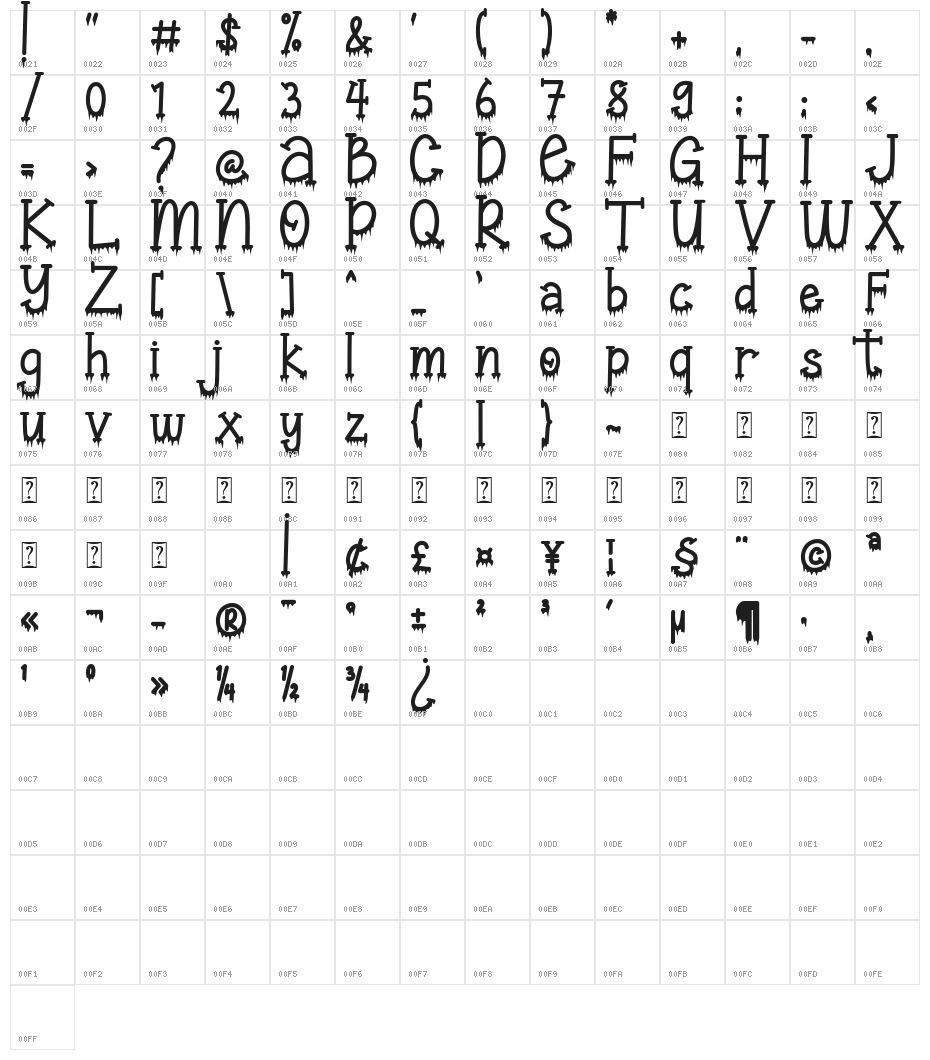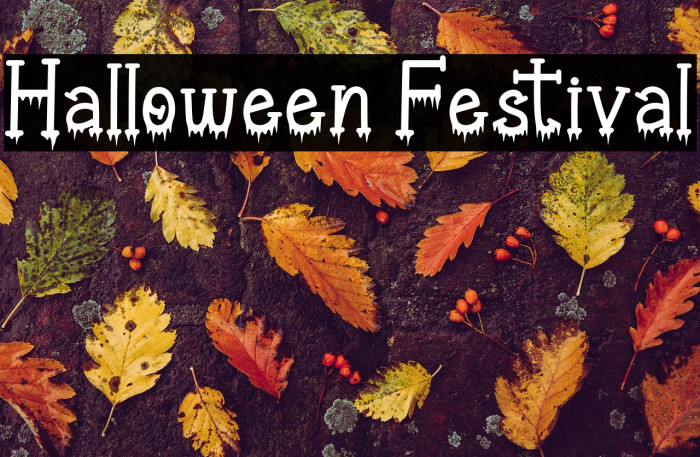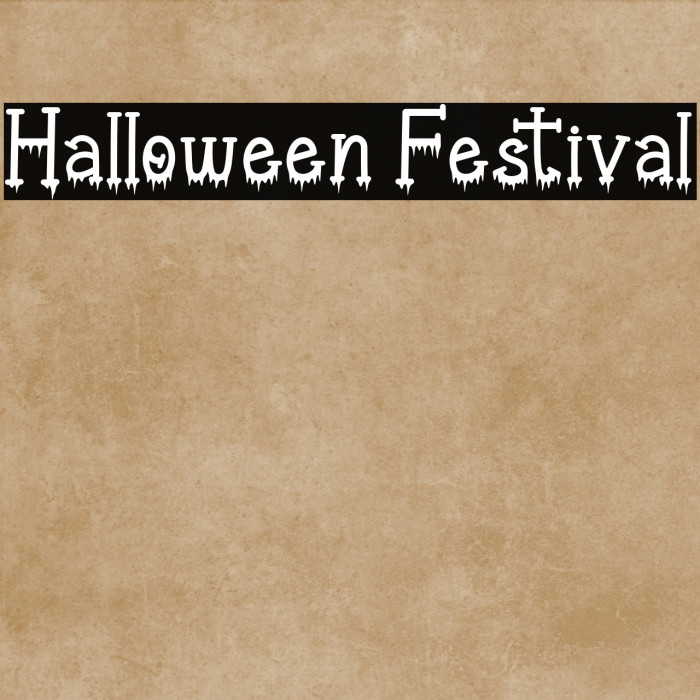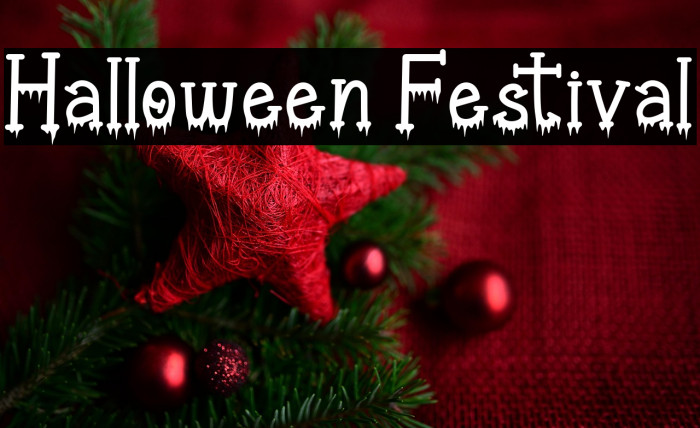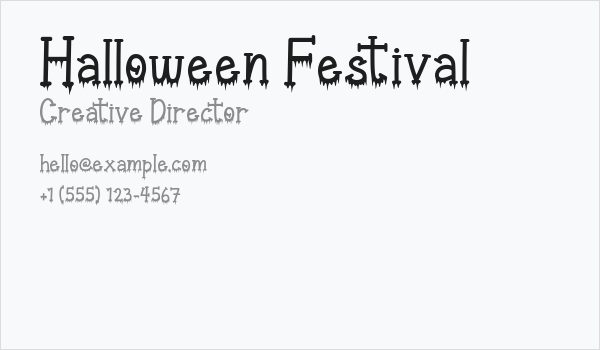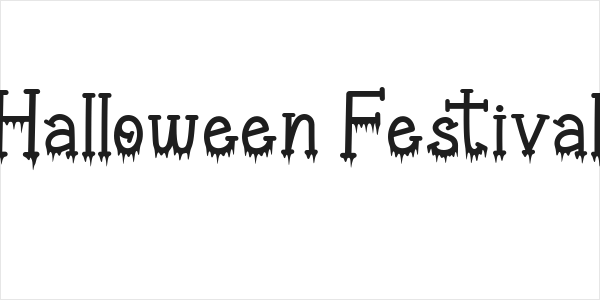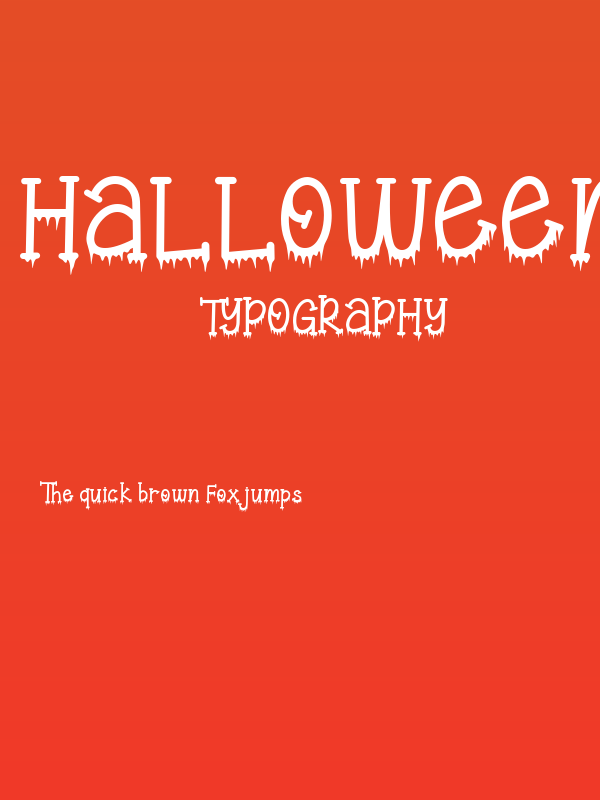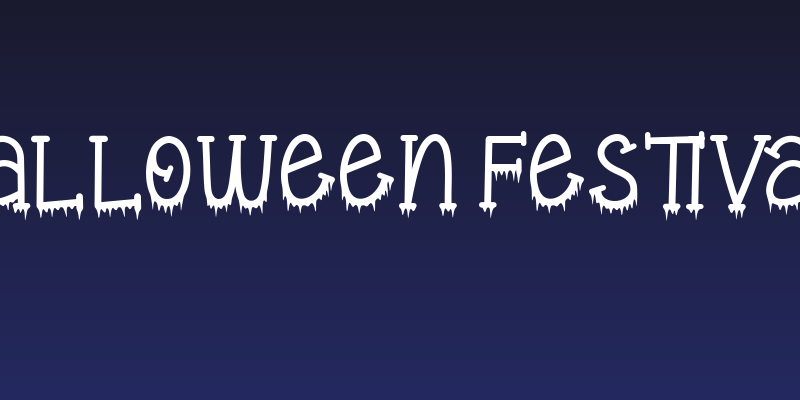
Halloween Festival Font
Halloween Festival Description
This font features a playful and spooky design, perfect for Halloween-themed projects. Each character is adorned with dripping elements that resemble melting wax or goo, adding a creepy yet fun vibe. The letters are bold and slightly irregular, enhancing the eerie aesthetic. The uppercase and lowercase letters maintain a consistent style, with the numbers and special characters following suit. This font is ideal for creating eye-catching headlines, posters, and invitations for Halloween events.
| Proposed Projects | Perfect for Halloween party invitations, spooky event posters, themed merchandise, and decorative signage. |